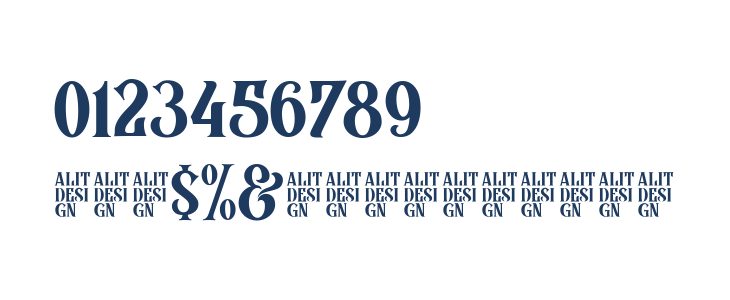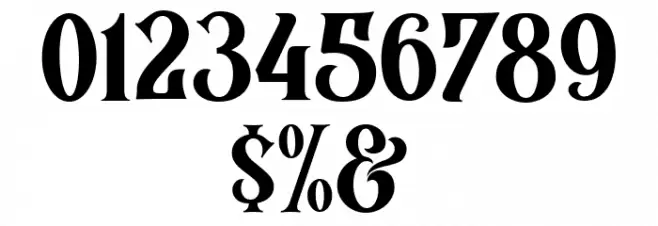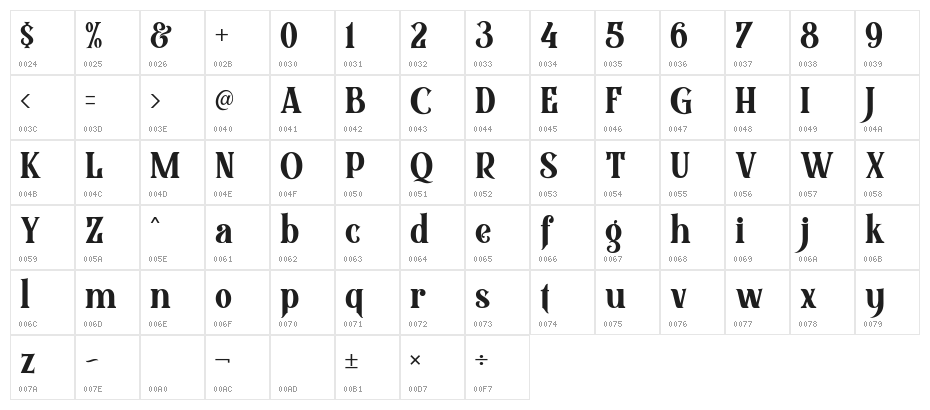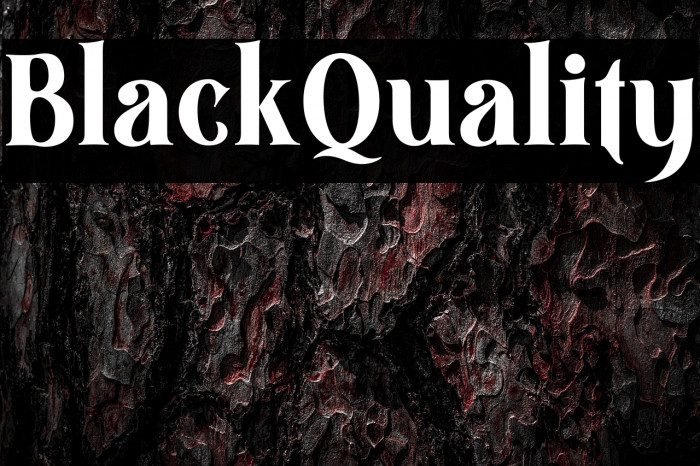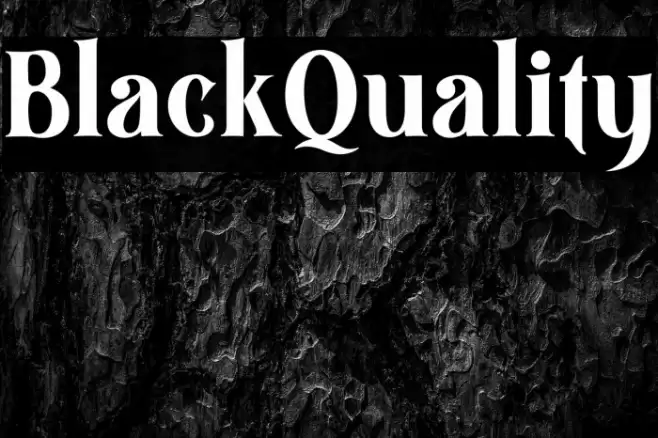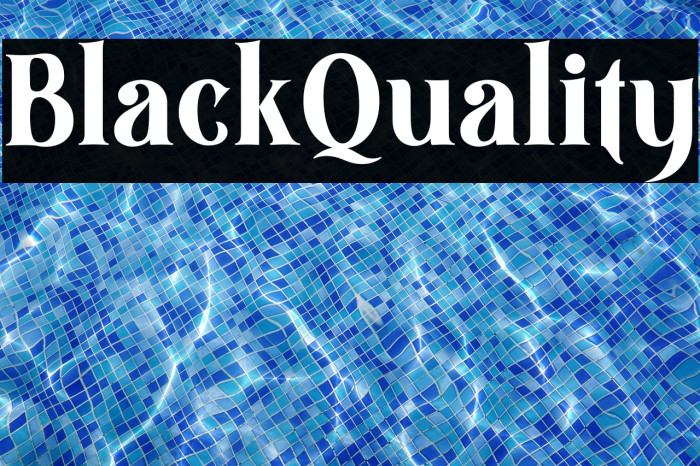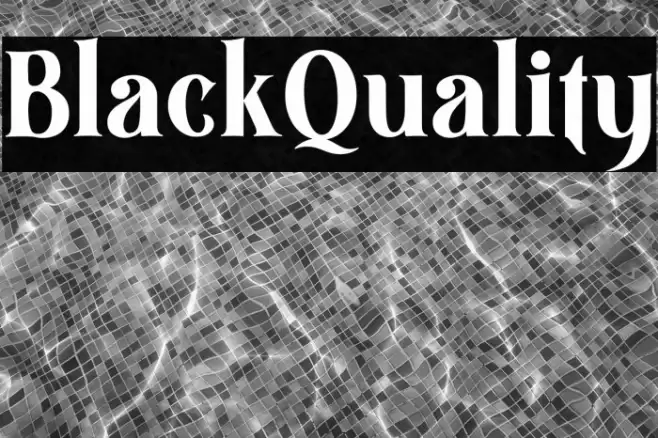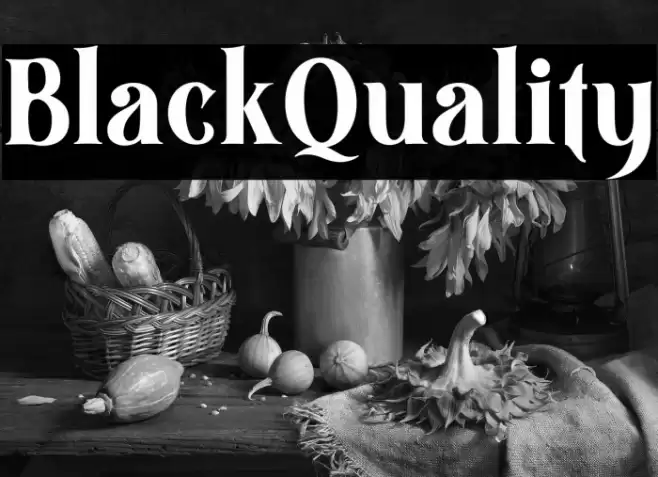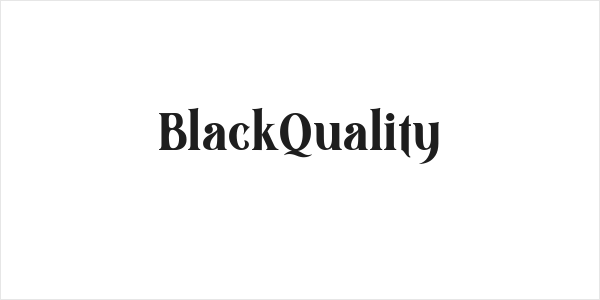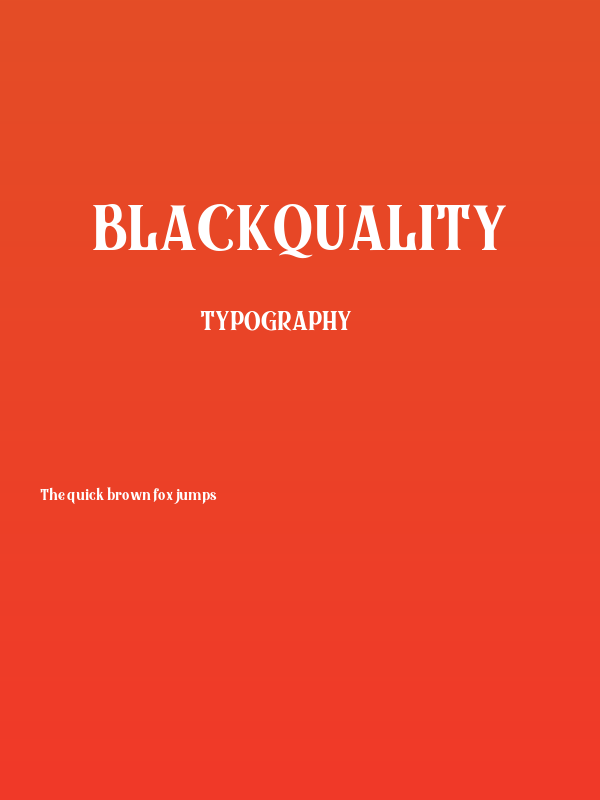
BlackQuality Font
BlackQuality Description
This font features a bold and dramatic style with high contrast between thick and thin strokes, giving it a striking and elegant appearance. The serifs are pronounced and slightly curved, adding a touch of sophistication. The uppercase letters are tall and commanding, while the lowercase letters maintain a consistent flow with unique flourishes, particularly in characters like 'g' and 'y'. The numerals are equally bold, ensuring readability and impact. Special characters are designed with the same attention to detail, making them stand out in any composition.